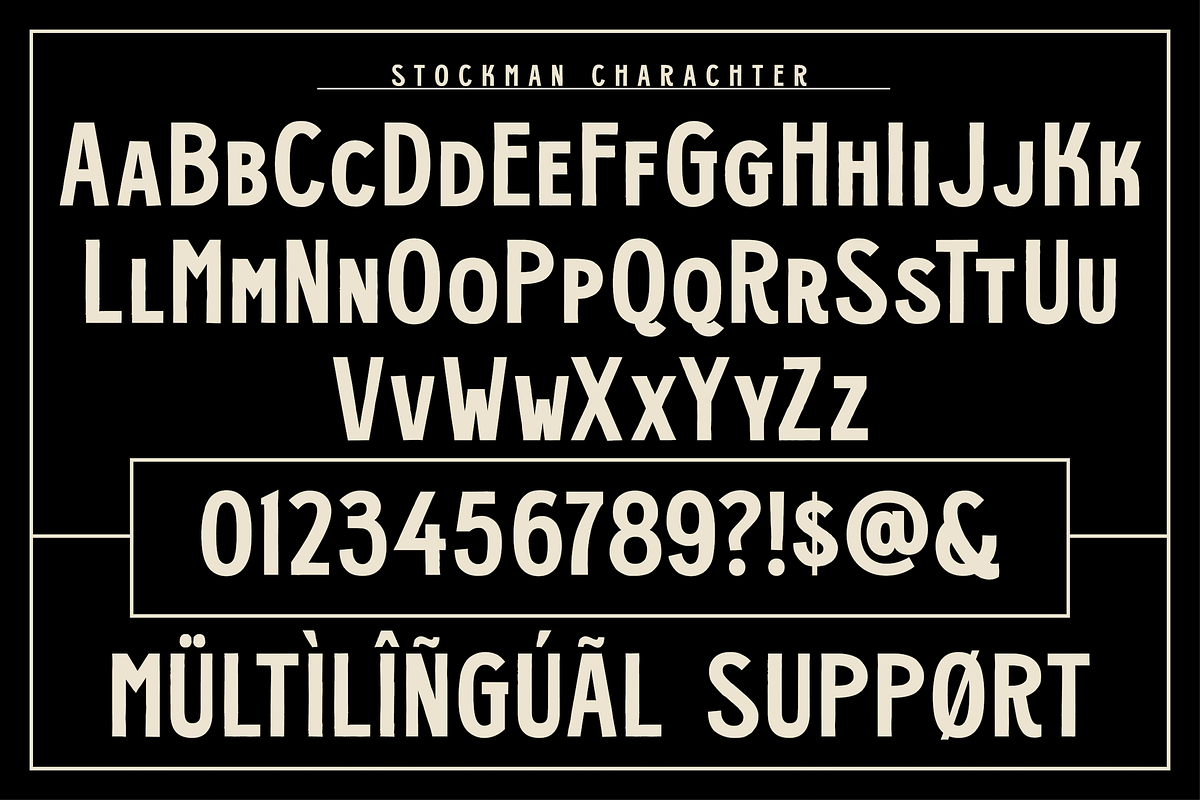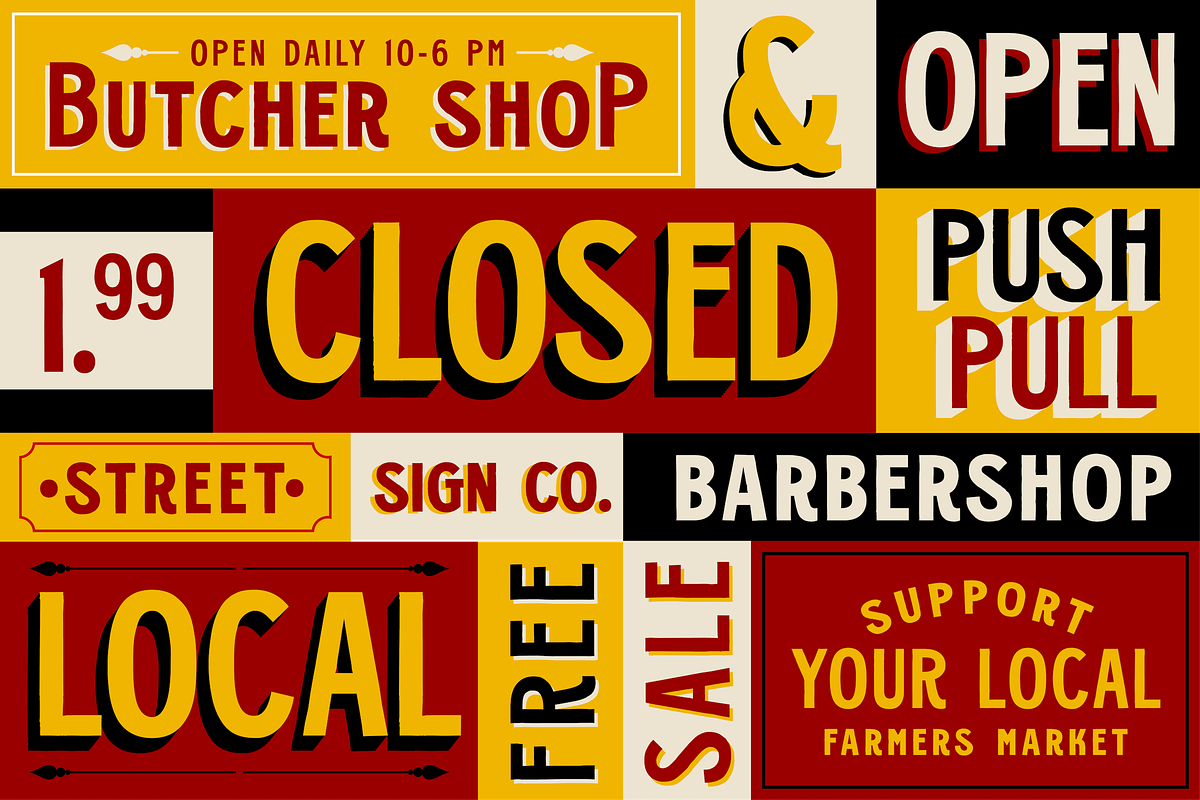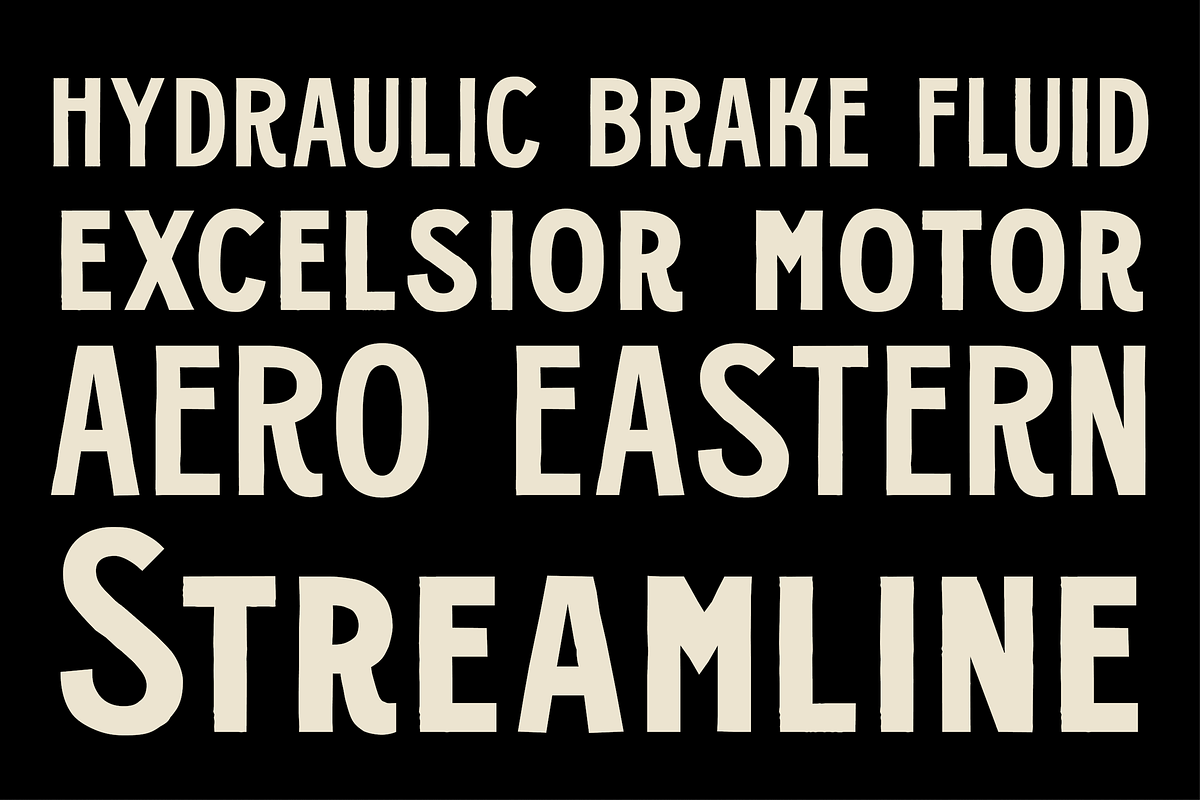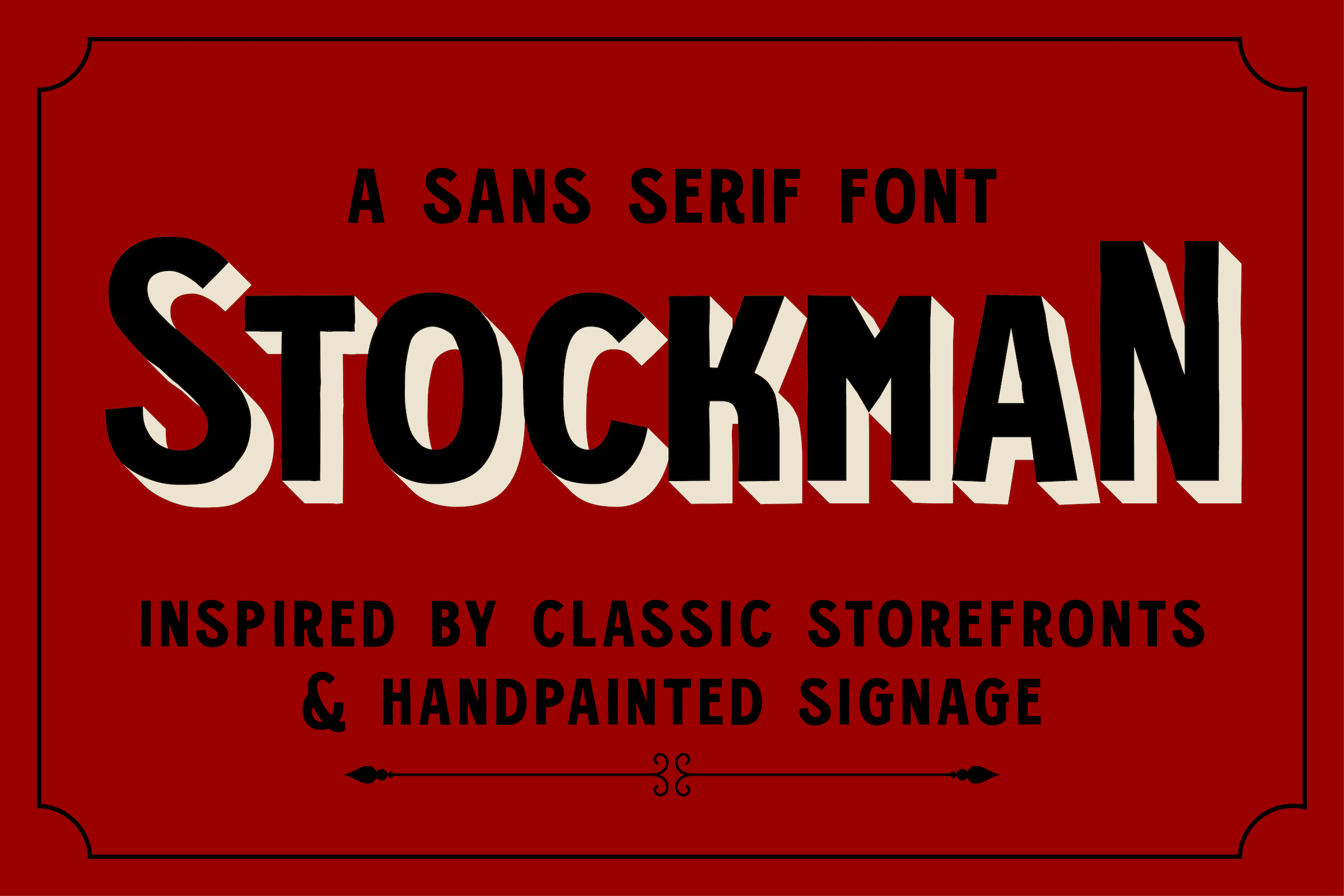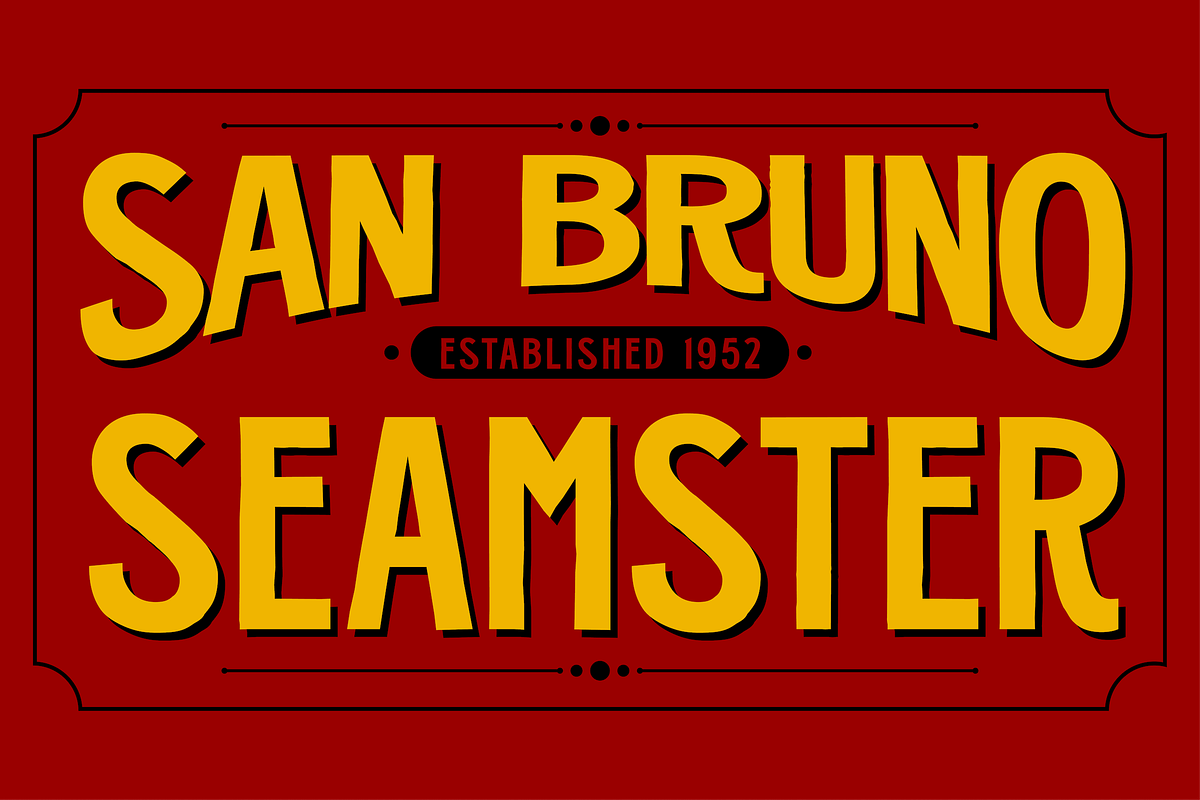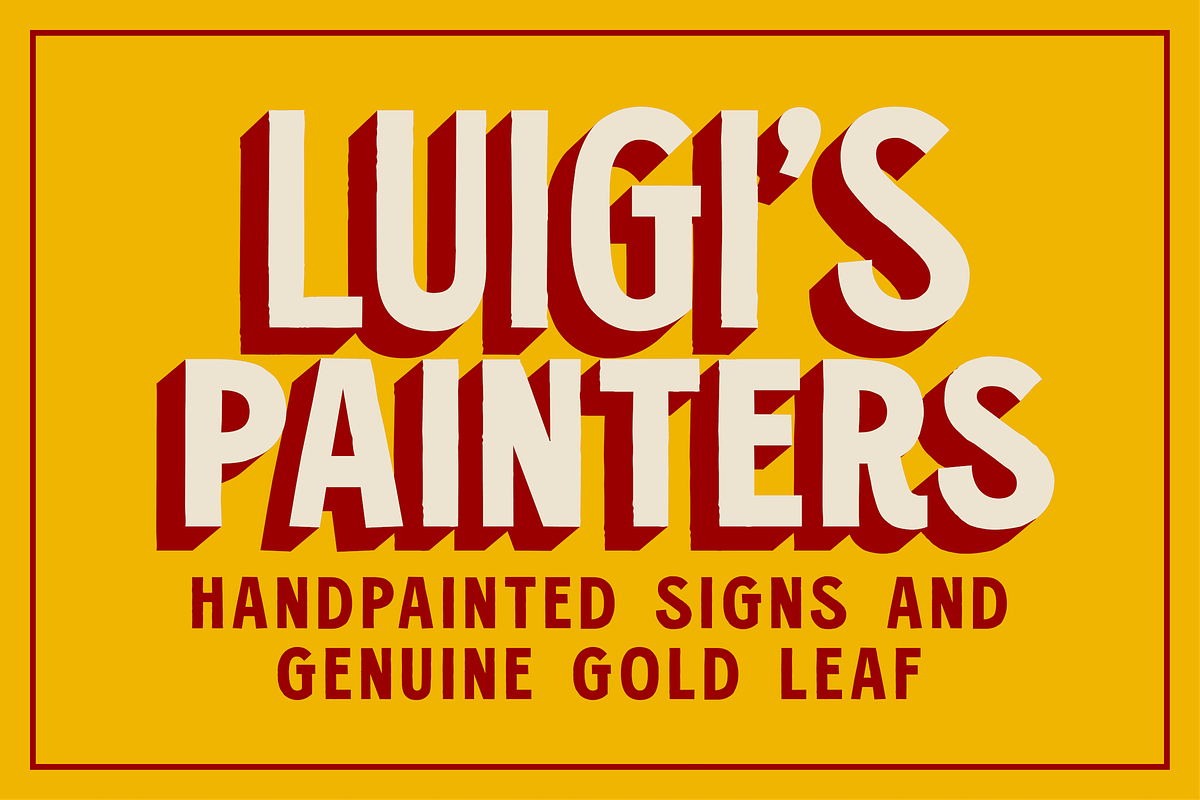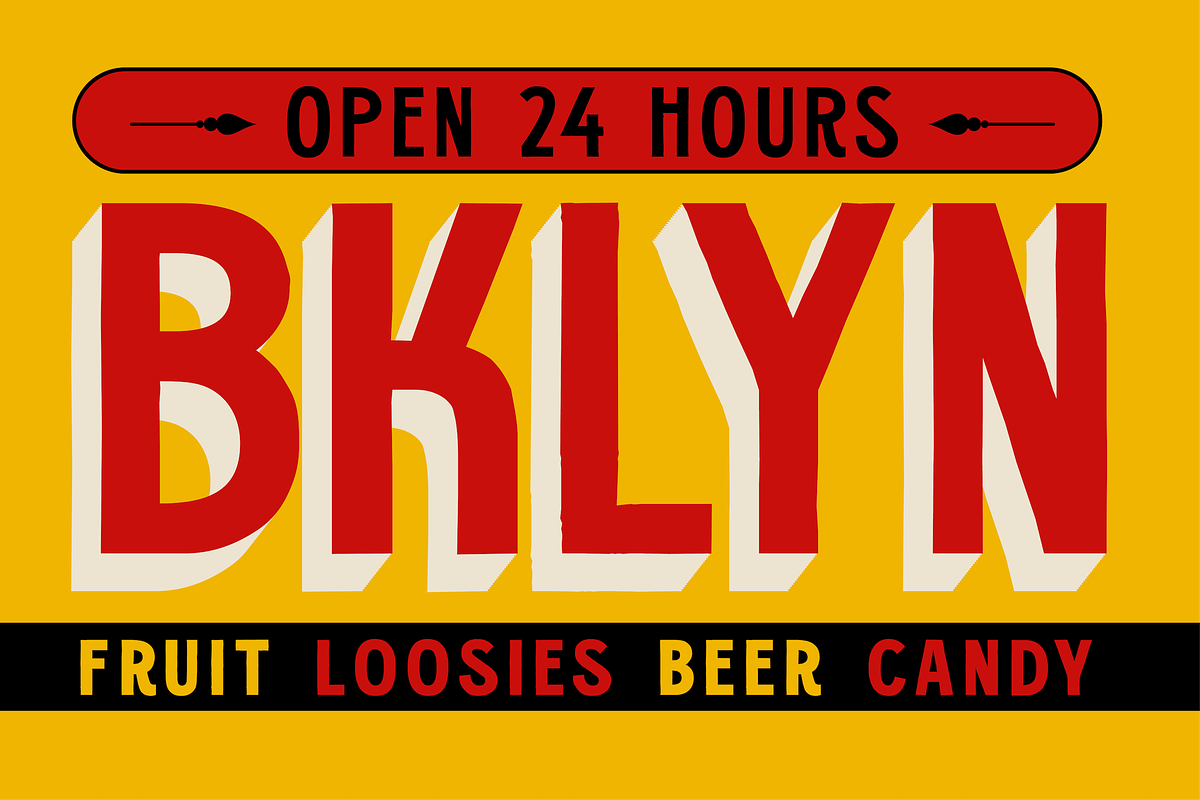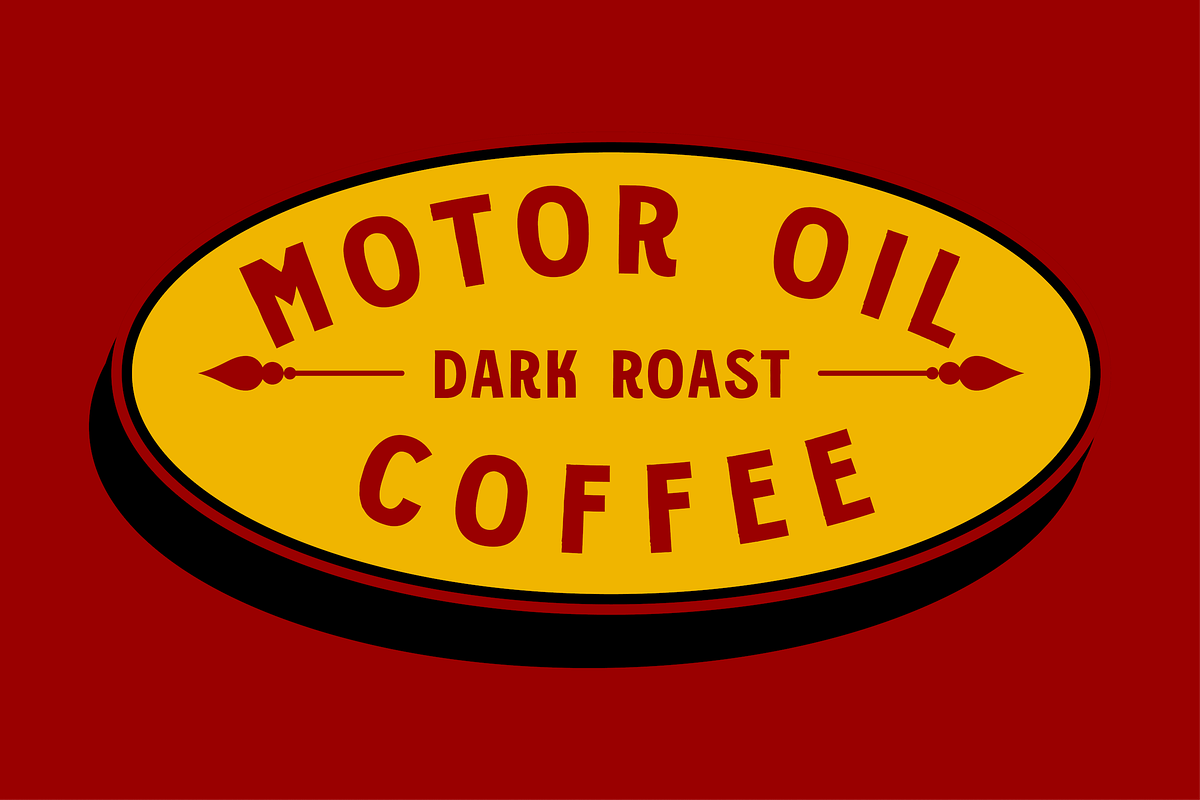
Stockman - Vintage Sans Serif Font
Stockman is a vintage sign painting inspired sans serif typeface that's perfect for your next branding project.
Stockman features subtle rough edges like real hand painted signage, and has tall and small caps for creating traditional type layouts.
Perfect for your next logo design project, or for creating traditional ad layouts or marketing content.